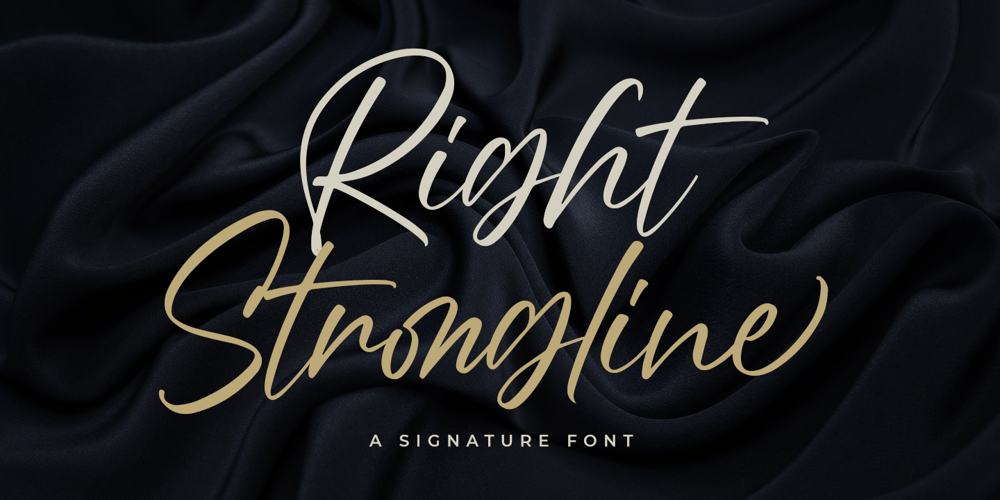
Right Strongline Font Family was designed by Bangkit Tri Setiadi and published by Blankids. Right Strongline contains 1 styles and family package options. Introducing of our new product the name is Right Strongline a Signature Font inspired by classy signature style this font is a fun theme very good for display, tshirt design, craft, quote sign, logotype and etc